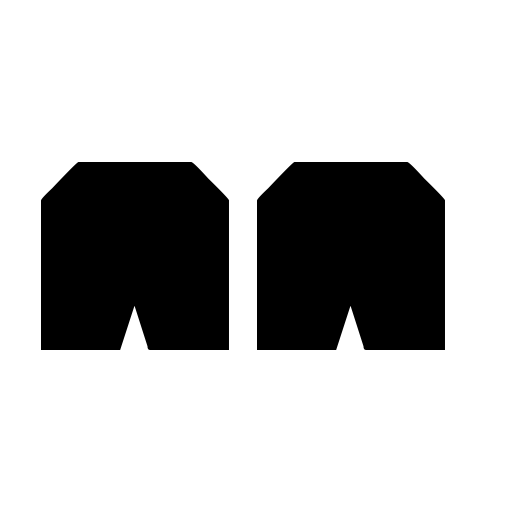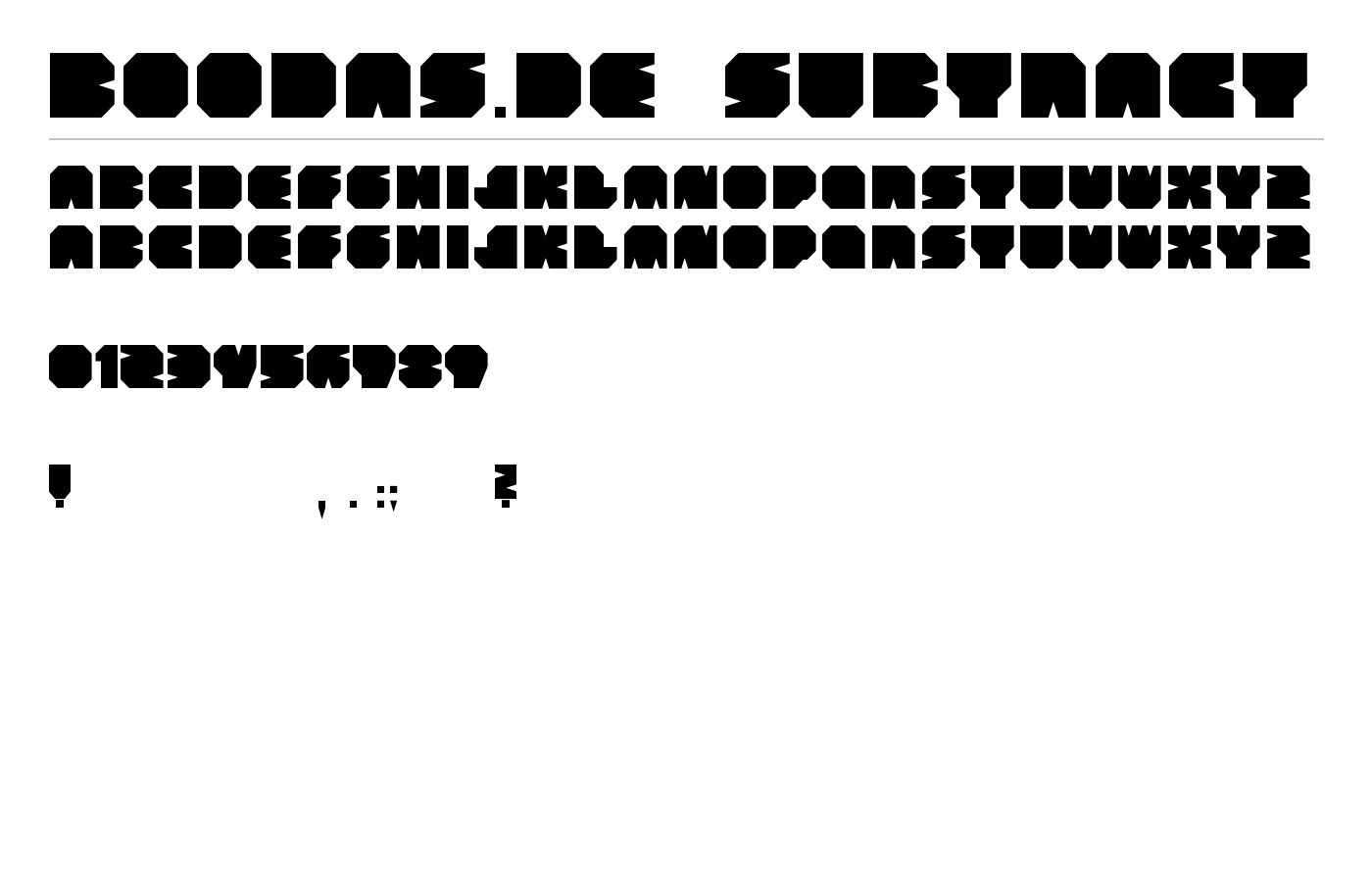
BOODAS.DE | Subtract is a bold, geometric sans serif font characterized by its blocky, angular shapes and heavy weight. It creates a striking, modern look with sharp edges and strong presence, making it ideal for impactful headlines, logos, and designs that demand attention. This font’s unique, almost stencil-like style conveys a futuristic and edgy personality suited for creative branding and display use.
BOODAS.DE | Subtract Font
About BOODAS.DE | Subtract Font